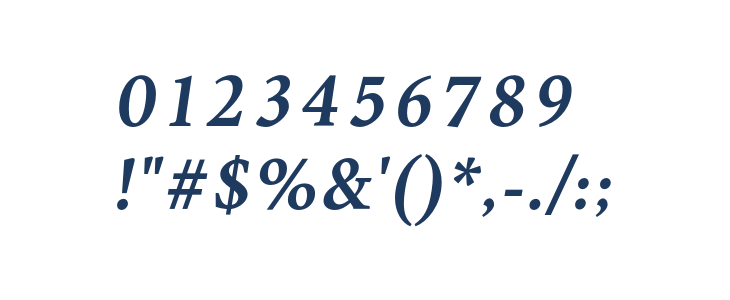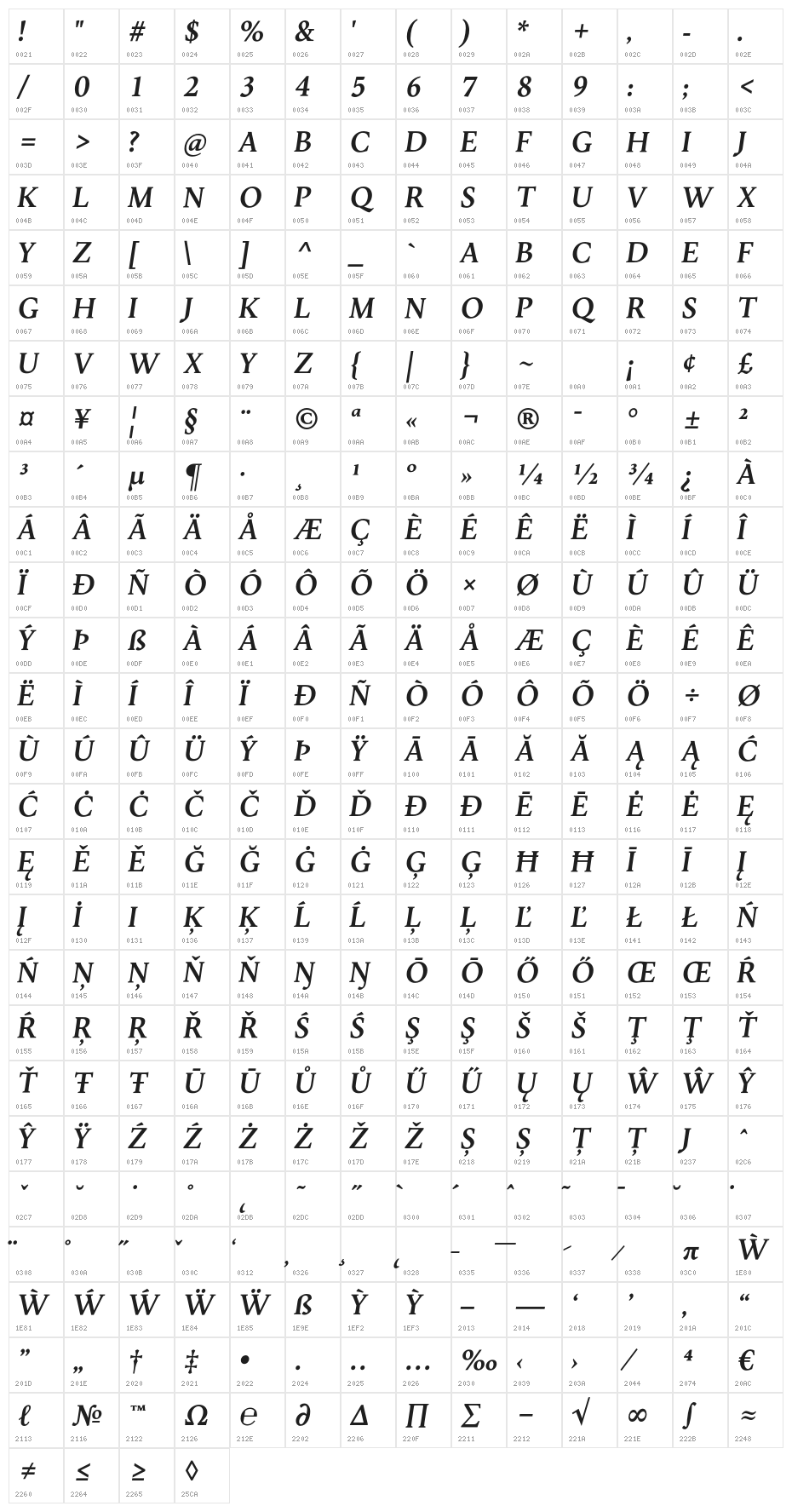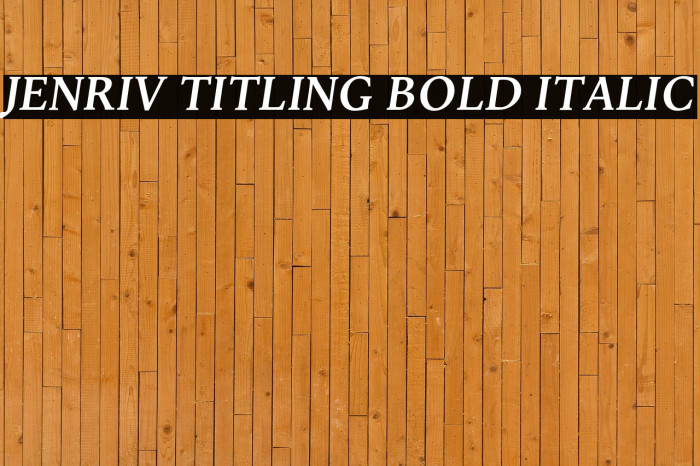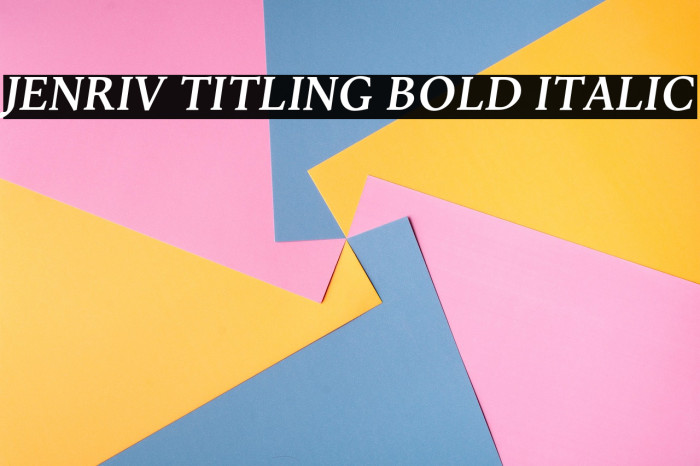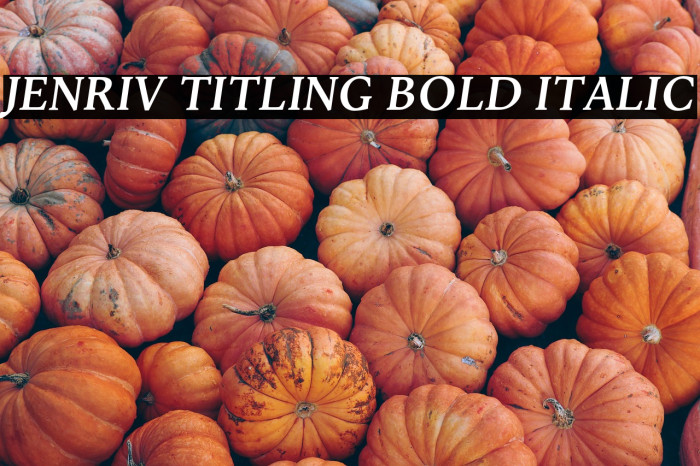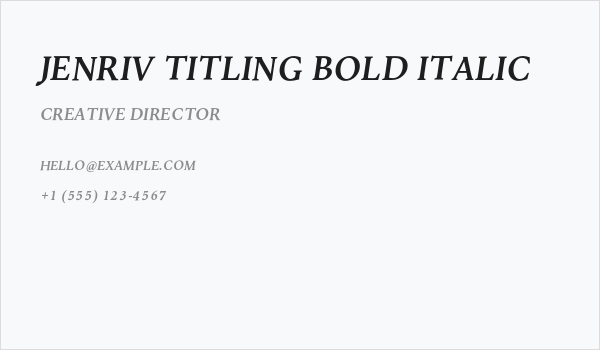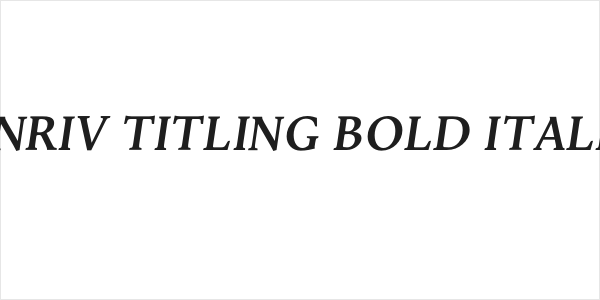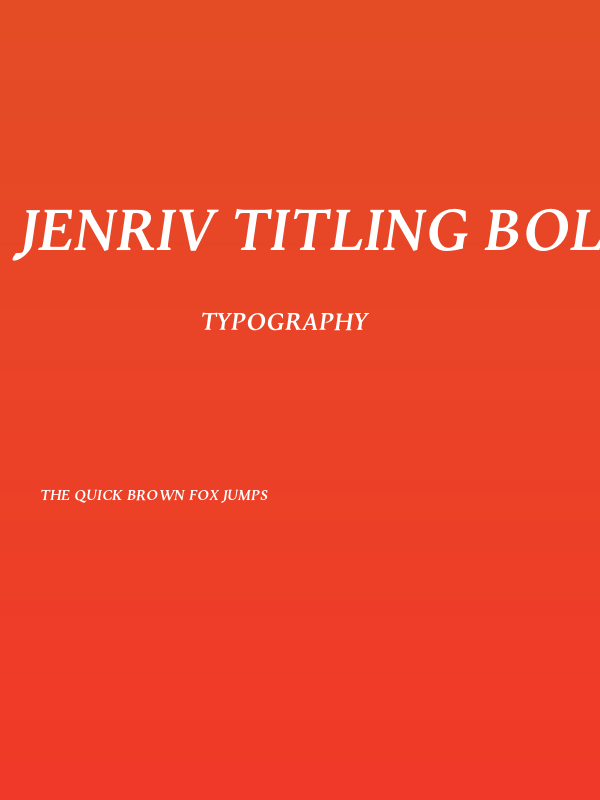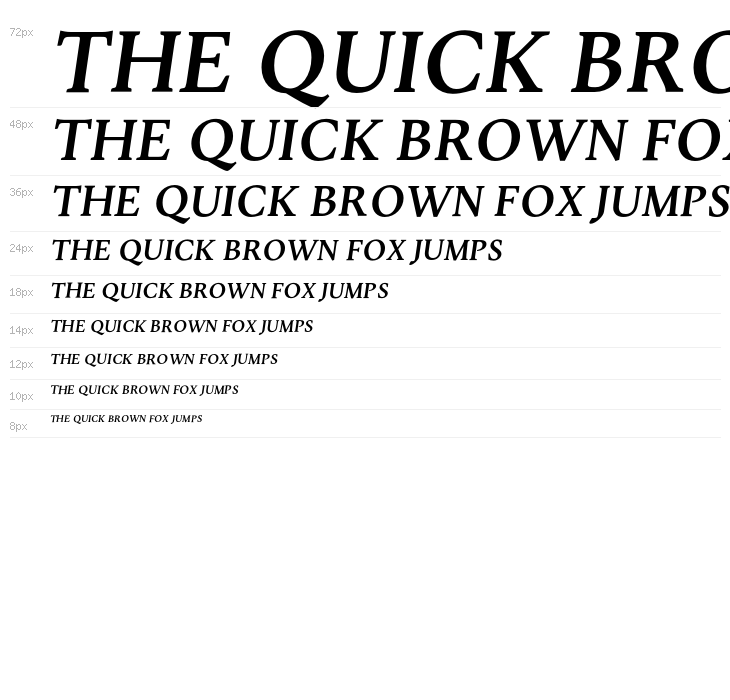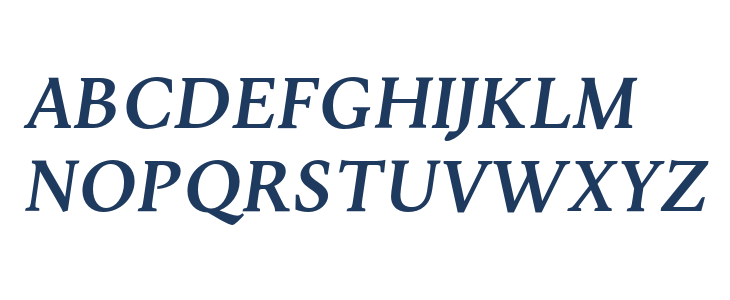
Jenriv Titling Bold Italic Font
Jenriv Titling Bold Italic Description
This font features a bold and italicized style, characterized by its elegant and dynamic appearance. The letters are slanted, giving a sense of movement and sophistication. The strokes are thick and consistent, providing a strong visual impact. The uppercase and lowercase letters maintain a uniform style, with smooth curves and sharp edges that enhance readability. The numerals and special characters are designed to complement the alphabet, ensuring a cohesive look across all text. This font is suitable for projects that require a touch of elegance and modernity.
| Proposed Projects | Ideal for luxury branding, editorial headlines, and elegant invitations. |